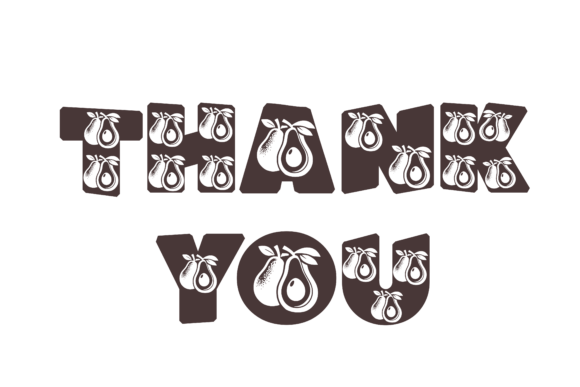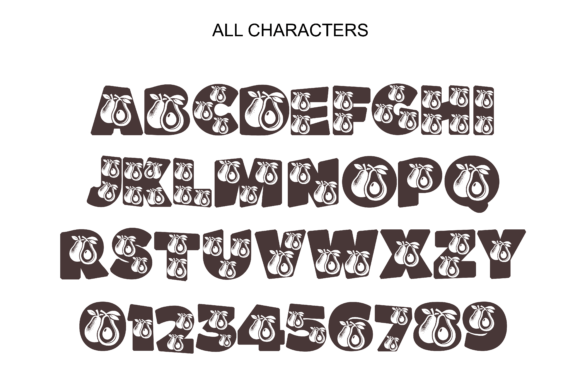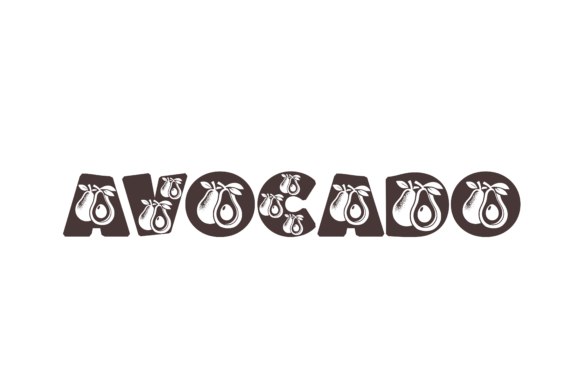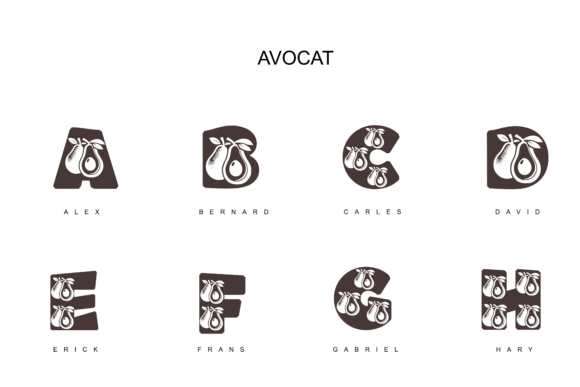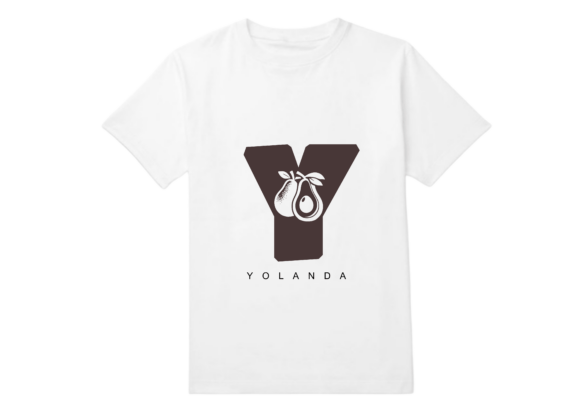
Introduction to Avocat Font
Dive into the enchanting universe of Avocat, where every stroke strikes a chord reverberating with childlike whimsy and wonder.
Dripping with the invigorating spirit of youthful innovation, Avocat weaves together alluring glyphs and vivacious alphabets, transforming conventional typefaces into a captivating ballet of letters With exacting precision and an unwavering eye for detail, each letterform in Avocat is crafted, serving as the ideal foundation for a wide array of artistic expressions.
Key Features of Avocat Font